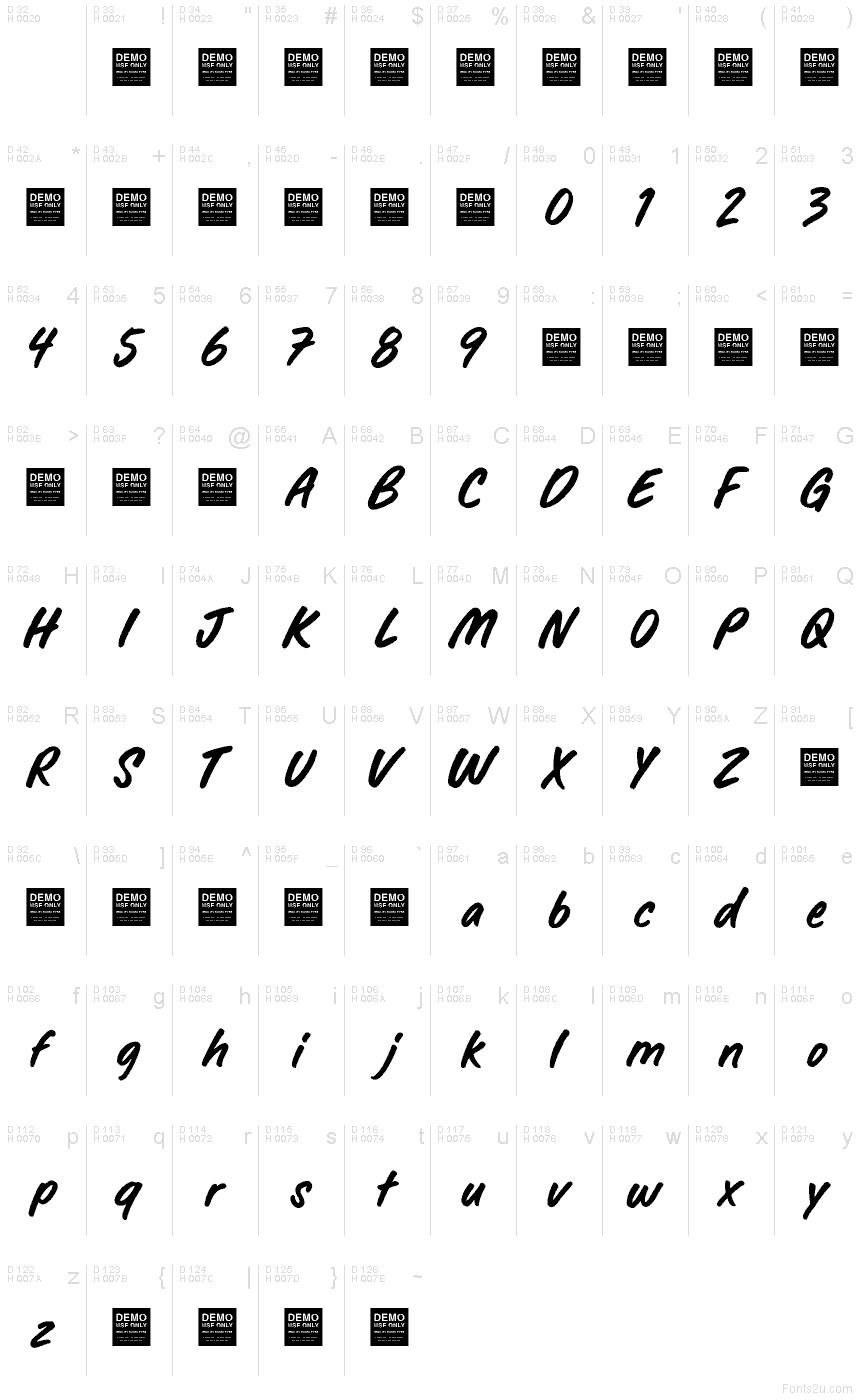
Paradise Found
Paradise Found font by BLKBK Fonts is a free brush script typeface. Its smooth, paint-marker strokes and easy forward slant create a breezy cadence that reads fast and feels sun-warmed. Letters connect with a confident sweep, forming compact, energetic word shapes that hold together even at bold sizes—great when you want casual warmth without mess or grit.
Using Paradise Found, your titles land with relaxed charm on beach posters, travel blogs, café menus, skincare and wellness packaging, summer event flyers, and YouTube thumbnails. The steady rhythm and generous curves add lift to short phrases and logos, while keeping copy legible. Pair this free font with a clean geometric sans for body text, and keep tracking snug to preserve its inky flow.